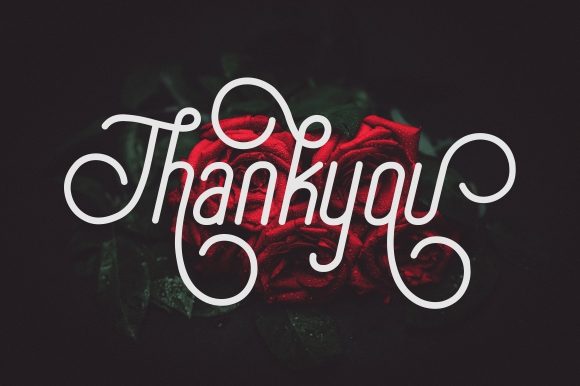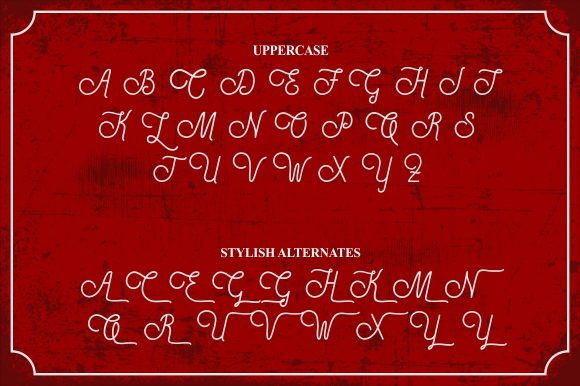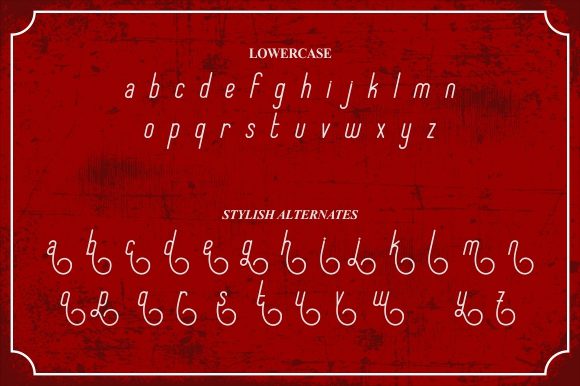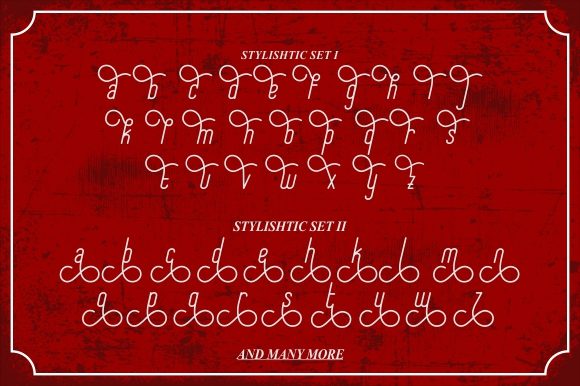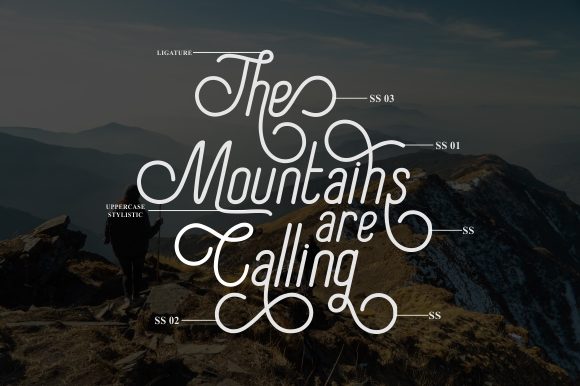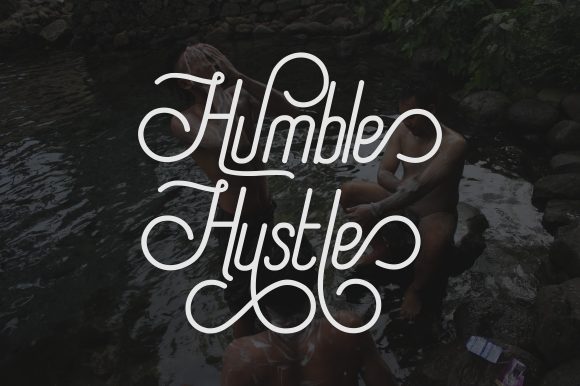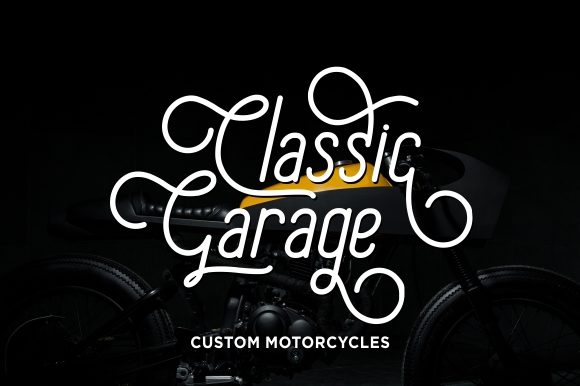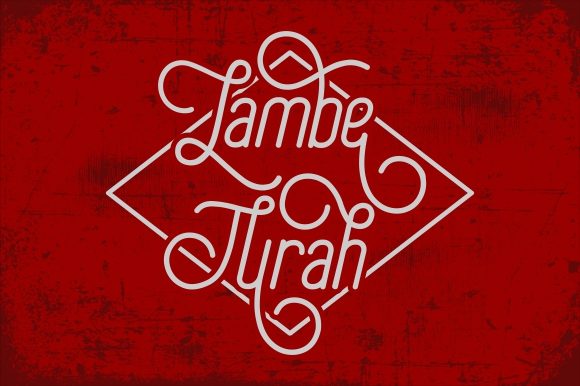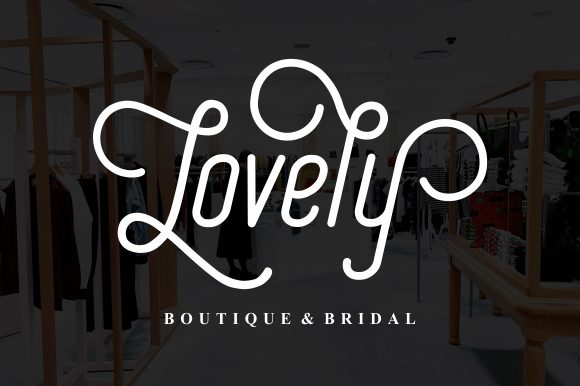
Special Thanks Font
About Special Thanks Font
Special thanks is a monoline typography font with an incredibly artistic vintage feel. Fall in love with its lovely energy.